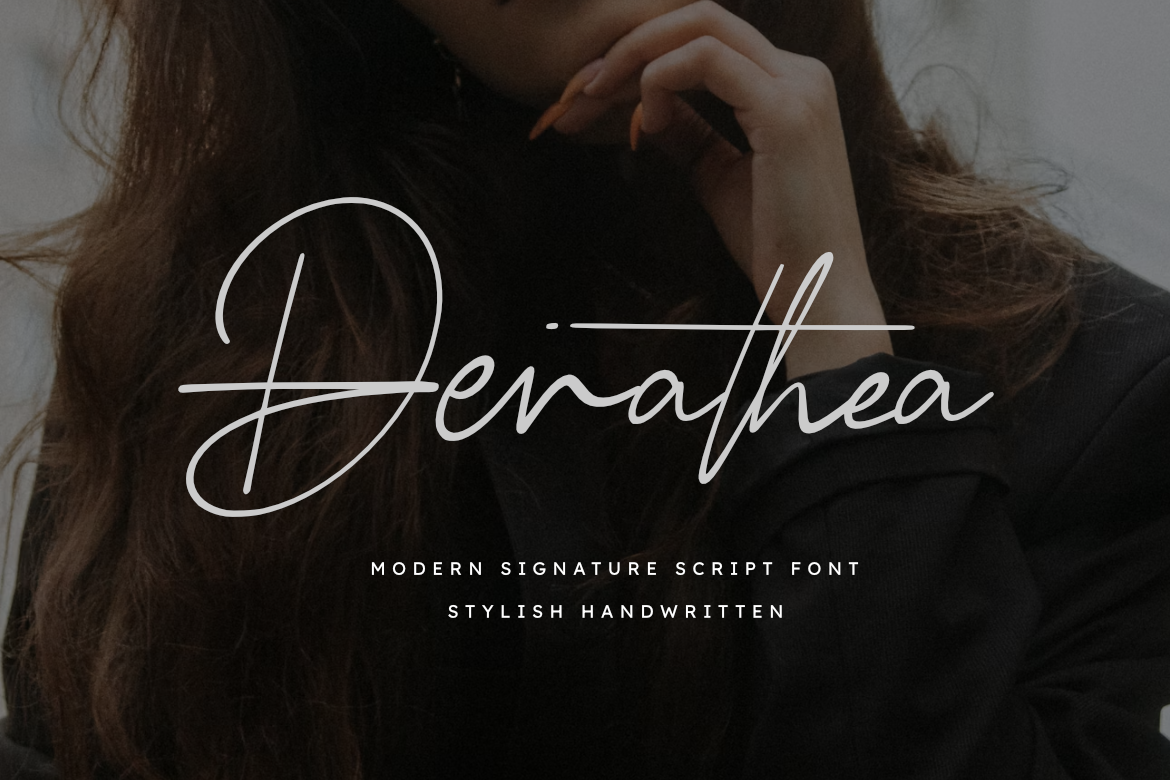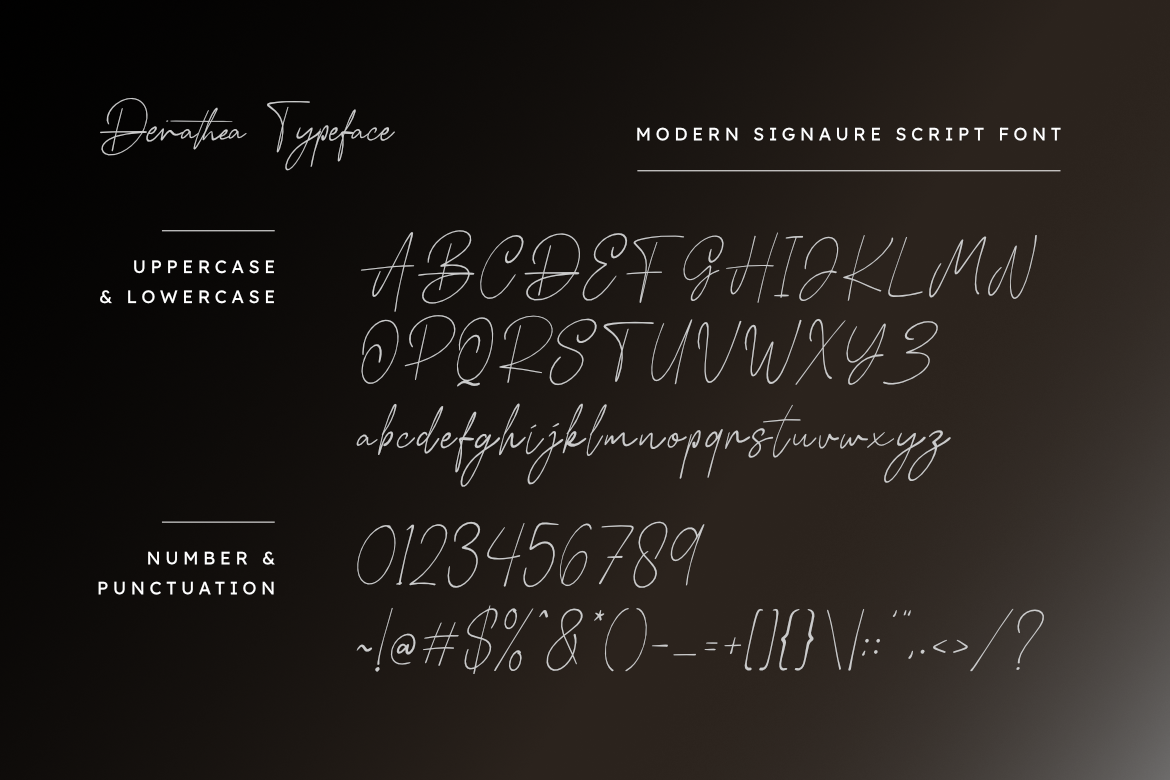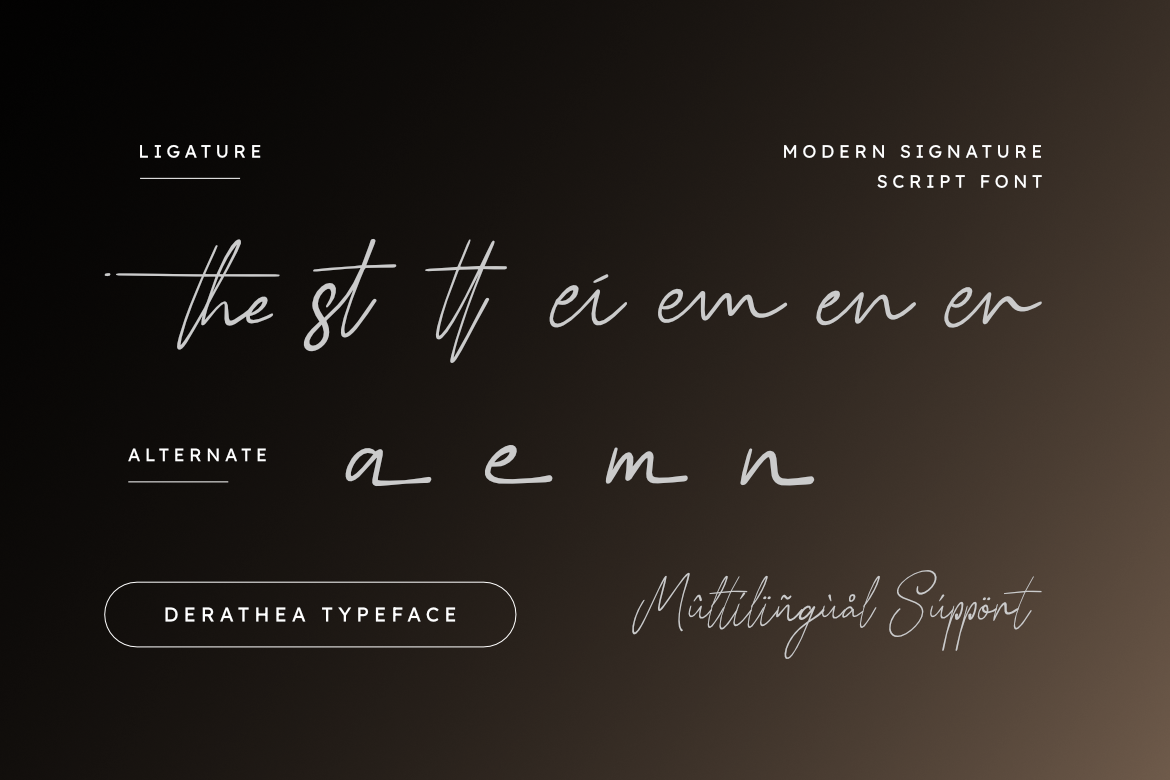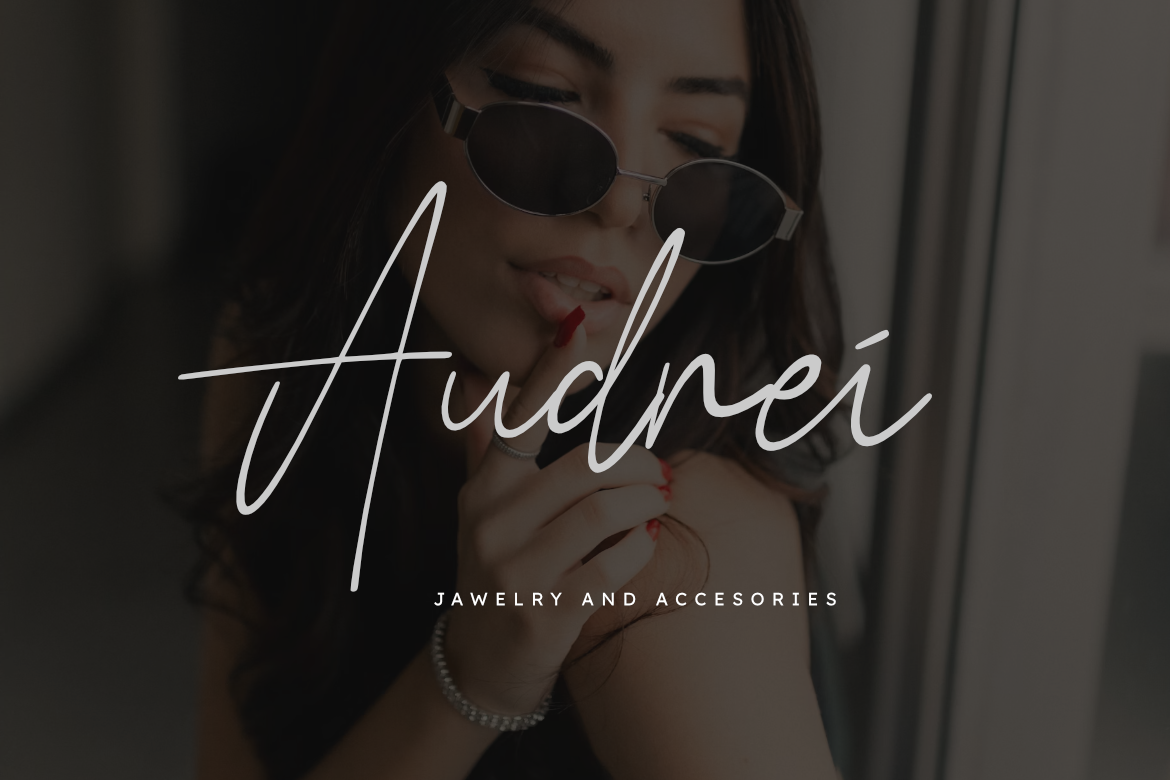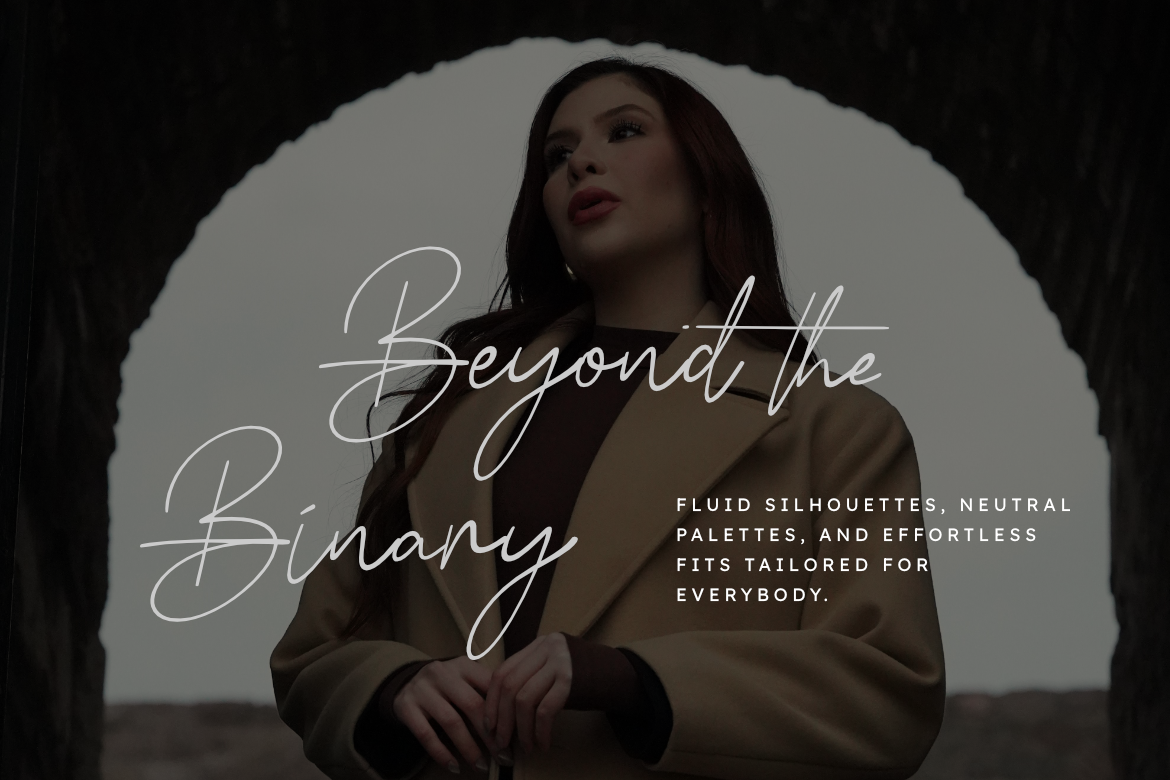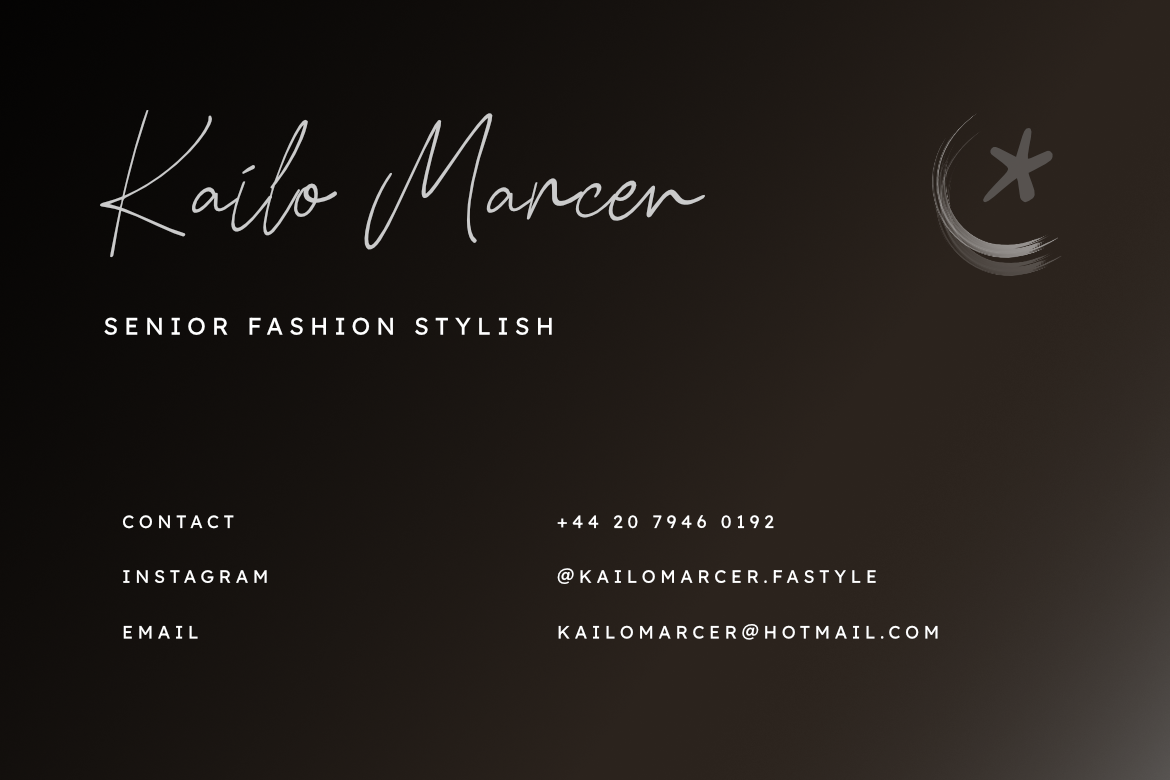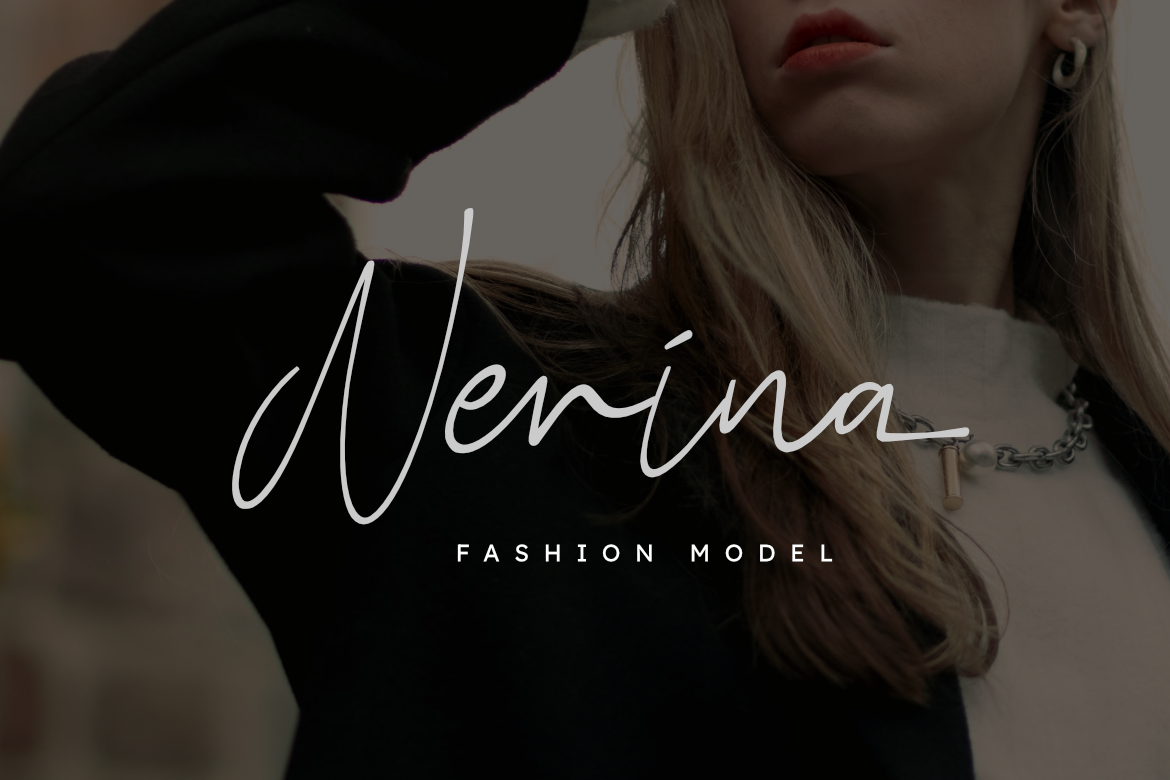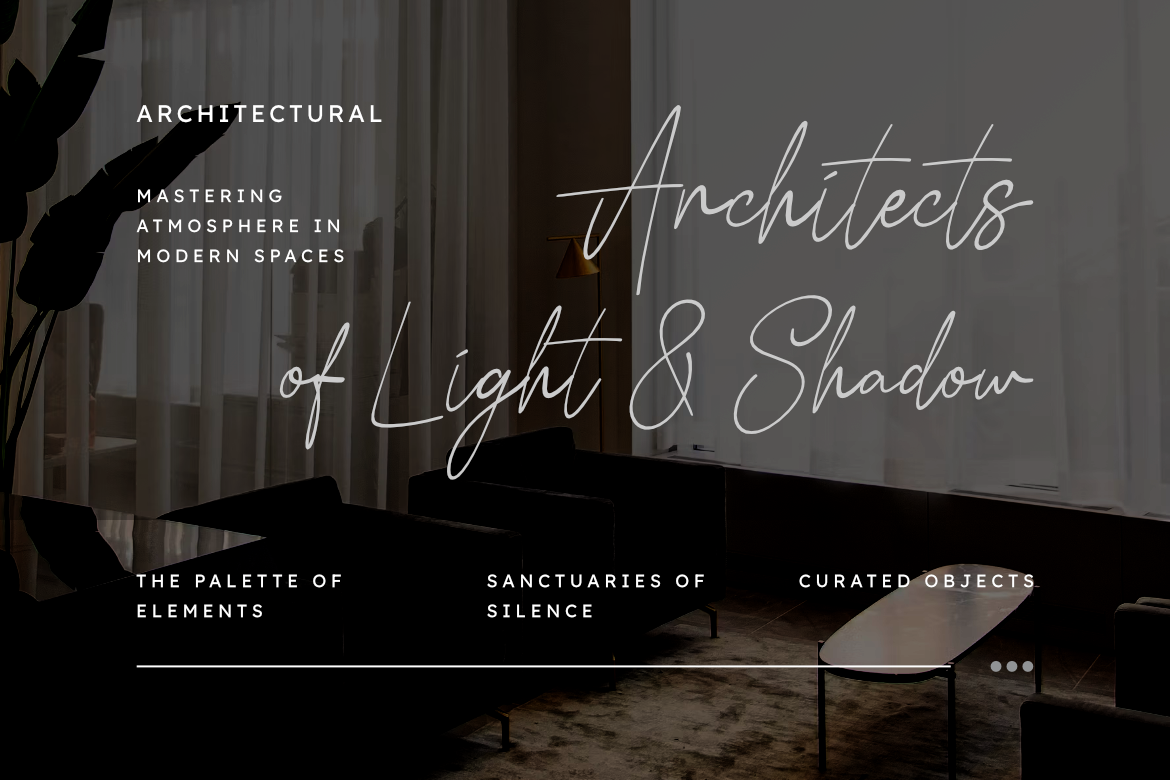
Derathea - Modern Signature Script Font
Derathea is a stylish handwriting font designed to bring authentic hand-drawn charm and high-end elegance to your creative projects.
This typeface features fluid, beautifully balanced handwritten letterforms with smooth strokes, iconic crossbar accents, and a natural flow, making it exceptionally versatile for luxury visual identities. Its stylish structure and intimate feel deliver a polished look that perfectly captures the essence of contemporary elegance, romantic aesthetics, and personal touch.
Whether you are crafting a brand identity for a luxury boutique, designing chic cosmetics packaging, or creating layouts for wedding invitations, lifestyle magazines, and social media quotes, Derathea ensures your work exudes grace and sophistication. It is ideal for logos, signature watermarks, stationery, and high-end promotional presentations.
Designed for modern creative applications, Derathea empowers you to communicate a sophisticated, personal aesthetic that leaves a lasting impression across both print and digital platforms.
Main Features:
• Authentic stylish handwriting and modern signature style.
• Smooth, fluid letterforms with professional finishing.
• Perfect for wedding invitations, luxury logos, and branding.
• High-impact visual presence for feminine and editorial design.
• Multilingual support.